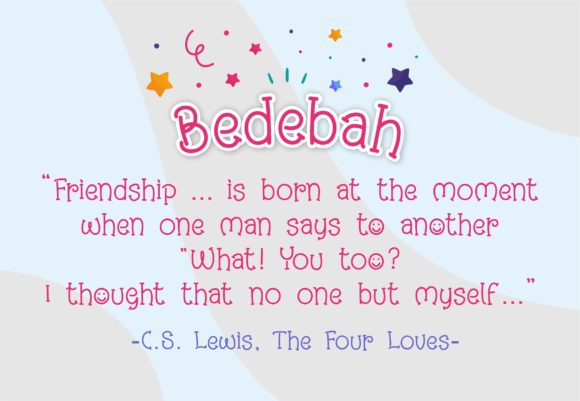
Bedebah Font
About Bedebah Font
Bedebah is a cute and whimsical monoline script. Use this fun typeface to take your crafting projects to the next level.